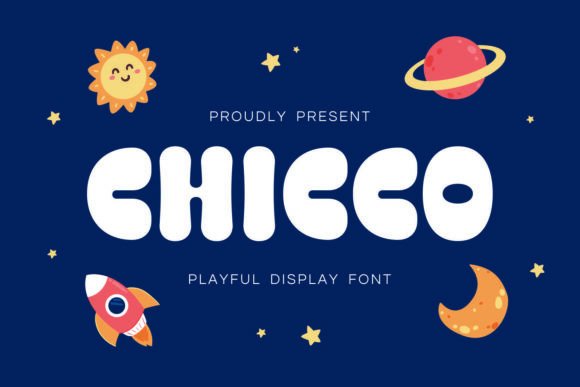
Introducing Chicco Font: The Ultimate Display Font for Adding a Touch of Whimsy to Your Designs
Are you tired of using the same old fonts in your designs? Do you want to add a touch of personality and whimsy to your projects? Look no further than Chicco Font, a delightfully bold and friendly display font that’s bursting with charm. In this article, we’ll take a closer look at Chicco Font, its features, and how you can use it to bring a sense of fun and approachability to your designs.
What is Chicco Font?
Chicco Font is a display font designed to bring a sense of fun and approachability to any project. With its super-rounded letters and chunky, consistent strokes, Chicco is the perfect font for designers who want to add a touch of personality to their work. Each character in Chicco has been crafted to be soft, bubbly, and incredibly charming, making it perfect for a wide range of design projects.
Key Features of Chicco Font
- Super-rounded letters: Chicco Font features super-rounded letters that give it a friendly and approachable feel.
- Chunky, consistent strokes: The font’s chunky, consistent strokes make it perfect for headlines and quotes that need to stand out.
- Soft and bubbly characters: Each character in Chicco has been crafted to be soft, bubbly, and incredibly charming.
- Thick letterforms: The thick letterforms in Chicco make a big impact, ensuring your headlines and quotes stand out in the most playful way possible.
Use Cases for Chicco Font
Chicco Font is perfect for a wide range of design projects, including:
- Children’s brands: Chicco Font is perfect for designing logos, packaging, and marketing materials for children’s brands.
- Cozy cafes: The font’s friendly and approachable feel makes it perfect for designing menus, signage, and marketing materials for cozy cafes.
- Pet adoption campaigns: Chicco Font’s playful and charming personality makes it perfect for designing materials for pet adoption campaigns.
- Social media graphics: The font’s bold and playful personality makes it perfect for designing social media graphics that need to stand out.
- Branding and logos: Chicco Font is perfect for designing logos and branding materials that need to make a big impact.
- Food packaging: The font’s playful and charming personality makes it perfect for designing food packaging that needs to stand out on store shelves.
- Merchandise: Chicco Font is perfect for designing merchandise such as mugs, t-shirts, and other promotional items.
- Posters and children’s books: The font’s bold and playful personality makes it perfect for designing posters and children’s books.
- Website headers: Chicco Font is perfect for designing website headers that need to make a big impact.
Why Choose Chicco Font?
There are many reasons why you should choose Chicco Font for your next design project. Here are just a few:
- Unique personality: Chicco Font has a unique personality that’s hard to find in other fonts.
- Highly versatile: The font is highly versatile and can be used for a wide range of design projects.
- Easy to read: Despite its bold and playful personality, Chicco Font is easy to read, even at small sizes.
- Customizable: The font is highly customizable, allowing you to adjust the letter spacing, size, and color to suit your design needs.
Tips for Using Chicco Font
Here are a few tips for using Chicco Font in your designs:
- Use it for headlines and quotes: Chicco Font is perfect for headlines and quotes that need to stand out.
- Experiment with different colors: The font’s bold and playful personality makes it perfect for experimenting with different colors and color combinations.
- Pair it with other fonts: Chicco Font can be paired with other fonts to create a unique and visually appealing design.
- Use it consistently: To get the most out of Chicco Font, use it consistently throughout your design project.
Chicco Font is a delightfully bold and friendly display font that’s bursting with personality. With its super-rounded letters and chunky, consistent strokes, Chicco is the perfect font for designers who want to add a touch of whimsy to their designs. Whether you’re designing for a children’s brand, a cozy cafe, a pet adoption campaign, or a cheerful social media feed, Chicco Font is the perfect choice. So why not give it a try and see how it can bring a sense of fun and approachability to your designs?